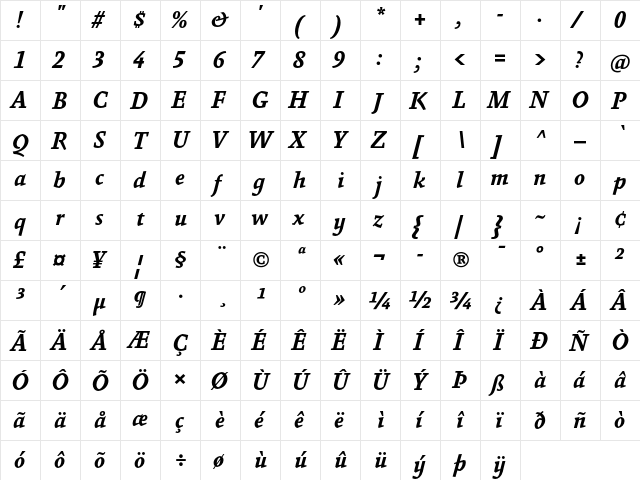
Absara TF Bold Italic
Design Context for Absara TF Bold Typeface
Absara TF Bold is a composed and adaptable typeface that performs quietly and consistently across a wide range of design contexts. The slanted form adds forward momentum and visual energy. Its bold stroke weight gives it real presence on the page.
Pro Tip: Use Absara TF Bold for emphasis, pull quotes, and subheadings where its slanted energy can add rhythm to the layout.